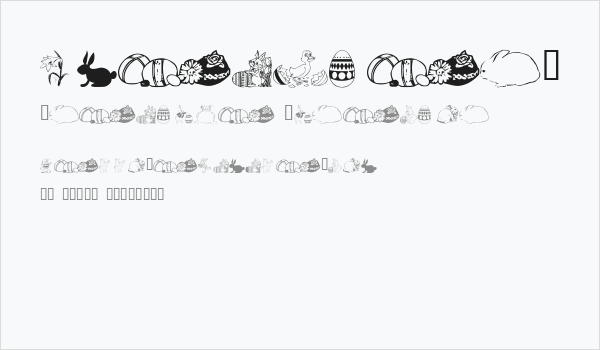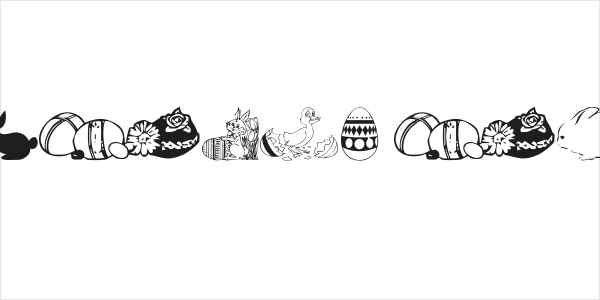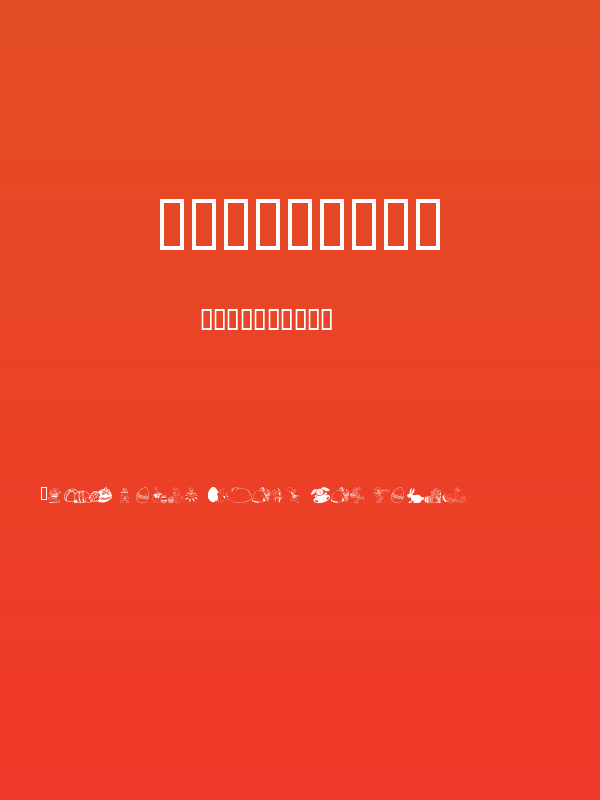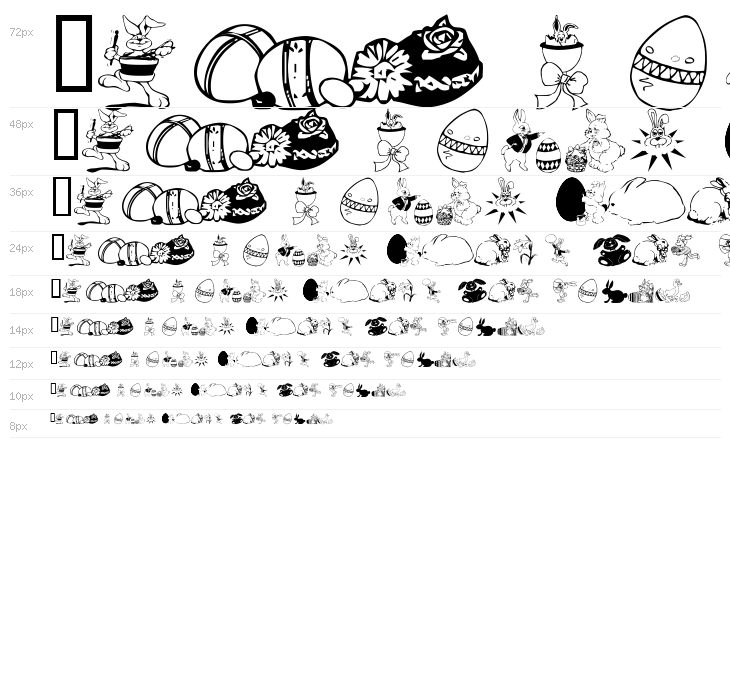
wmeaster1 Font
wmeaster1 Description
A decorative dingbat font featuring detailed Easter-themed illustrations such as bunnies, eggs, chicks, and spring motifs, rendered in a hand-drawn, cartoon-like style. Each character is represented by a unique illustration rather than a traditional letterform.
| Overall Style | Decorative, Playful, Thematic |
| Use Case | Decorative elements, Themed graphics, Crafting, Non-textual design |
| Proposed Projects | Holiday cards, children's party invitations, seasonal decorations, craft projects, educational materials. |